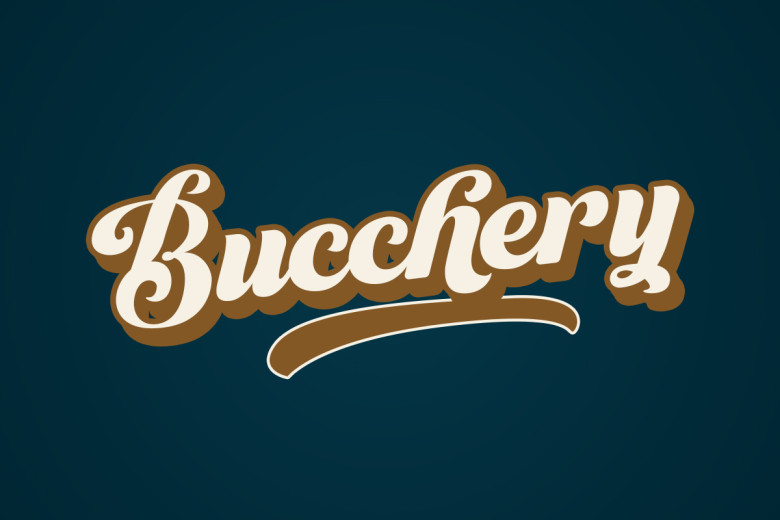
Bucchery Font
Bucchery script font is an effortless blend of sophistication and modernity, adaptable to both classic and contemporary design settings with ease. Boasting timeless elegance and designed to meet professional designers’ requirements for designs that are stylish yet adaptable,
this font offers high quality designs without being complex to use – an excellent option for designers seeking beauty as well as function within their designs. Discover this font collection now to enhance your designs with the captivating appeal of calligraphy!
Bucchery Script Font